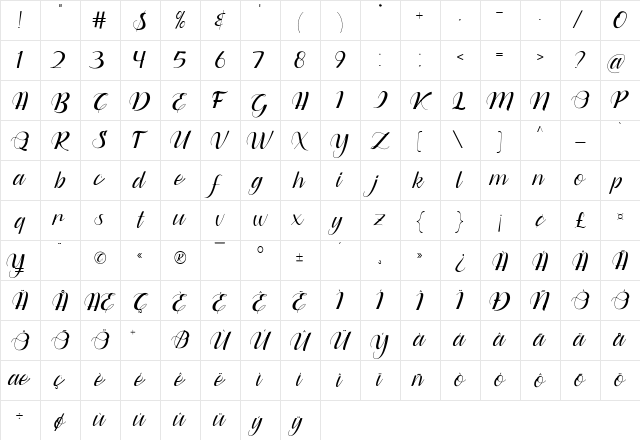
Dianora Regular Free Font
Dianora Regular
Foundry: Stringlabs
Designer: Stringlabs
Design Context for Dianora
Dianora is a composed and adaptable typeface that performs quietly and consistently across a wide range of design contexts.